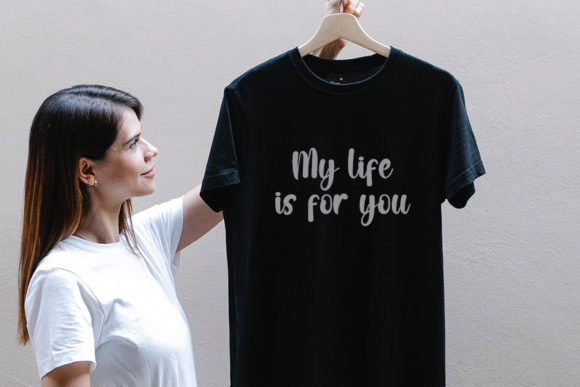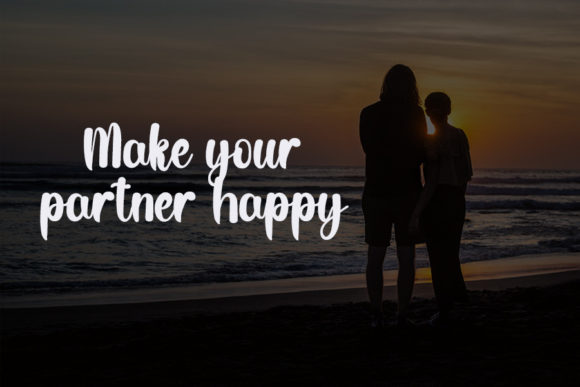
Onion Seeds Font
db-ku.com - Script & Handwritten -- Onion Seeds is a cool handwritten font with a modern vibe and spotless form, inspired by a classic calligraphy. Not too thin and not too thick, balanced and varied, this font was designed to enhance the beauty of your projects.